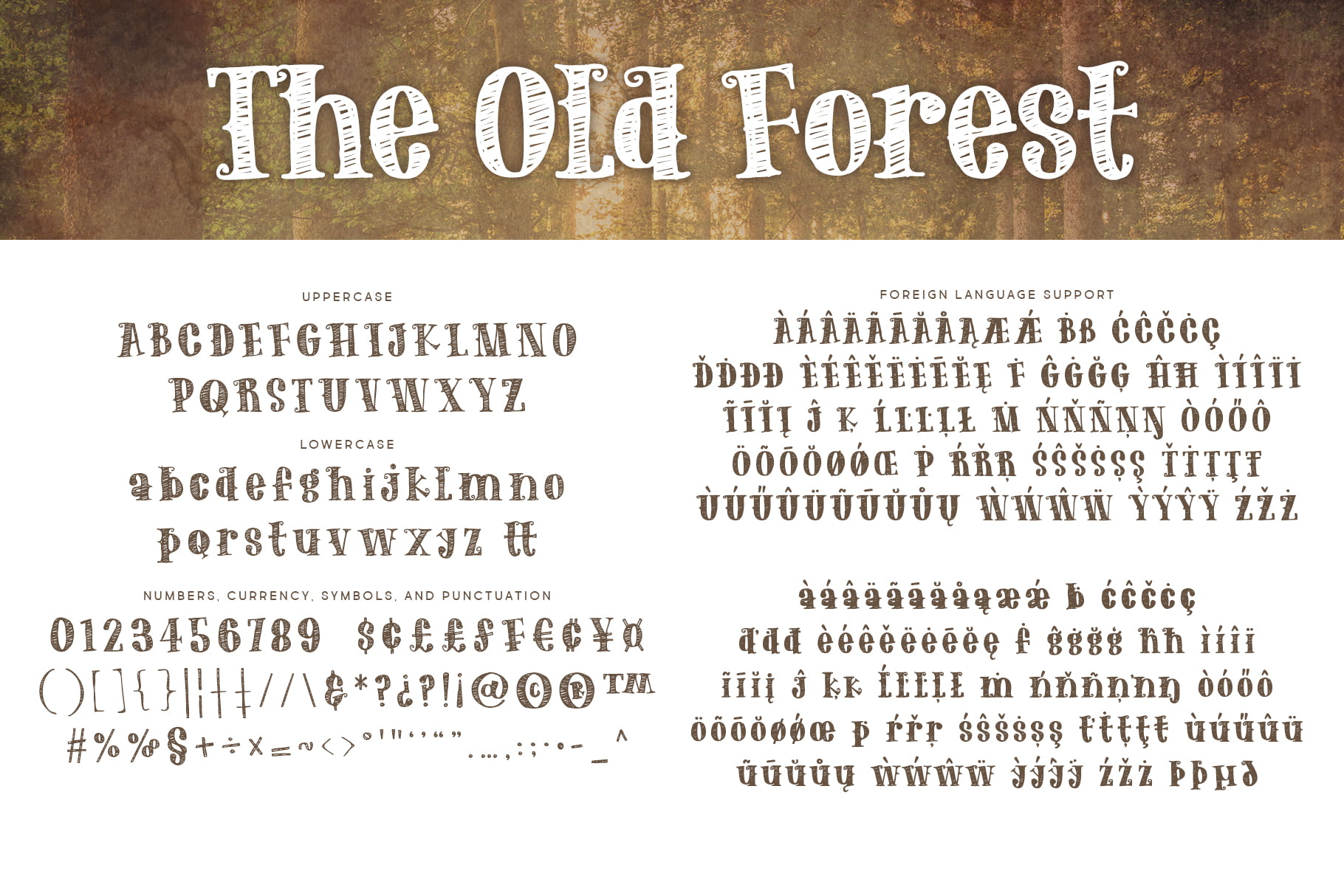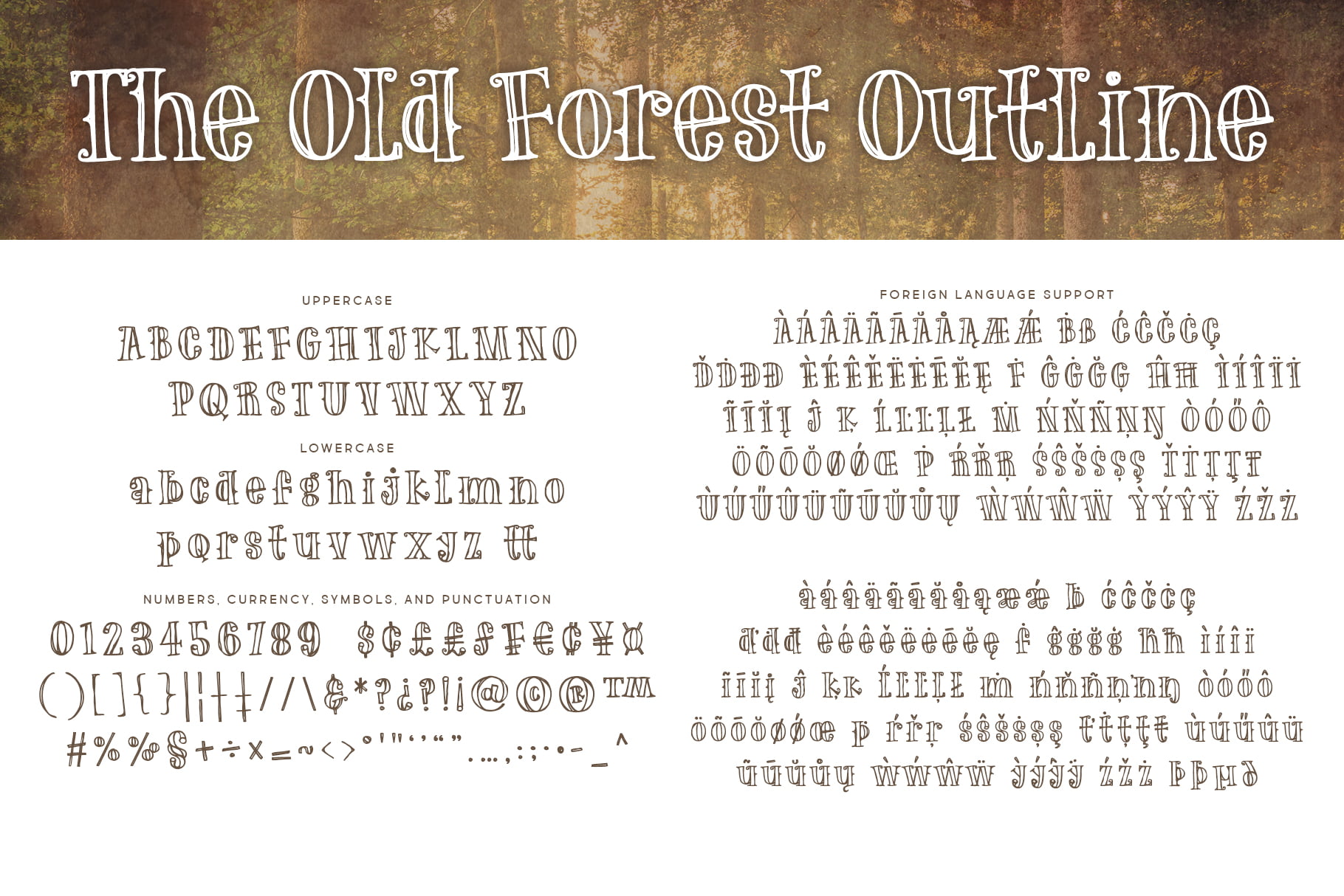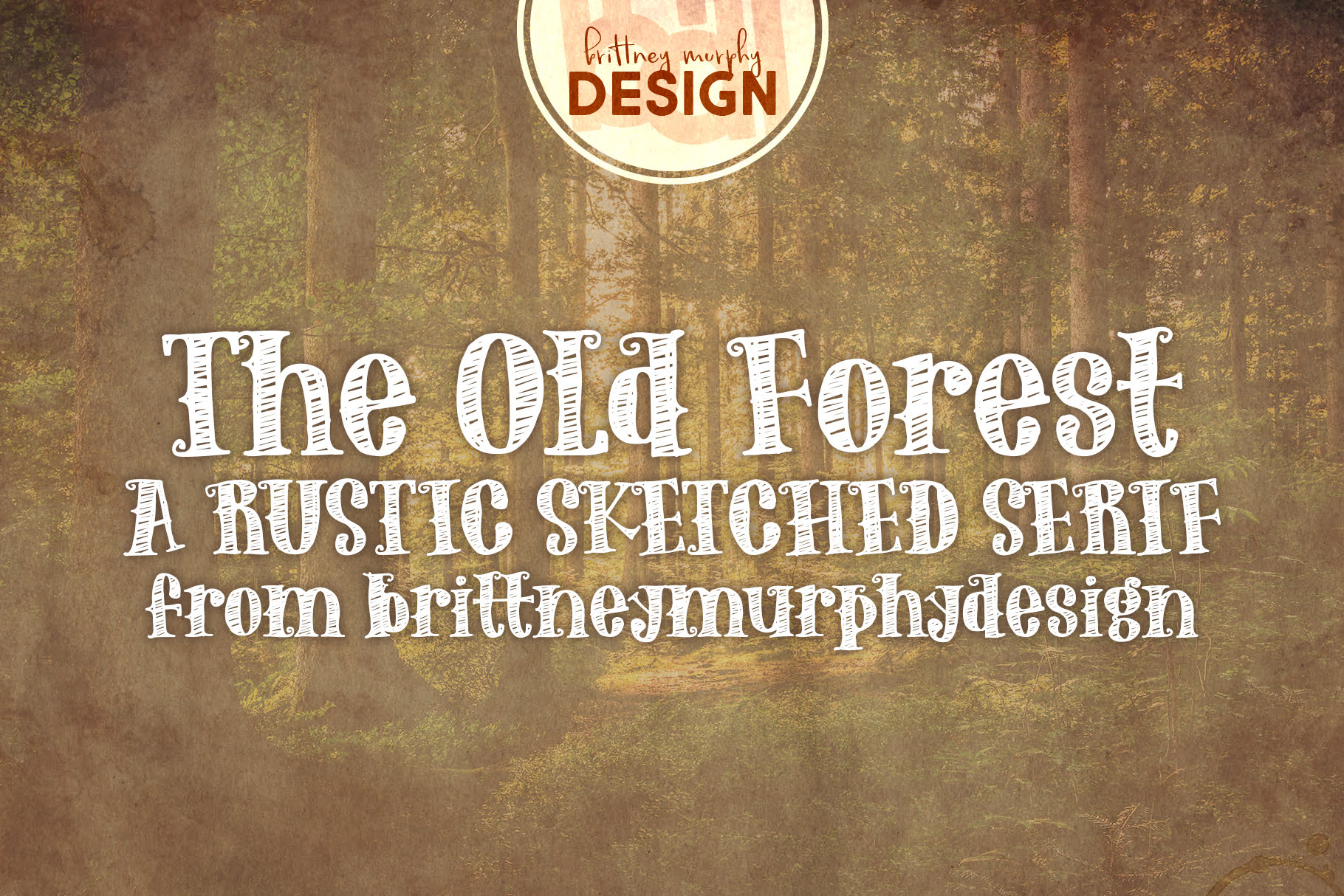
The Old Forest
The Old Forest font is a rustic handdrawn serif created in 2020 by Brittney Murphy Design. This font family includes two styles, the regular version as well as an outline version. The Old Forest was hand sketched so it’s little imperfections add lots of homemade charm to your projects!